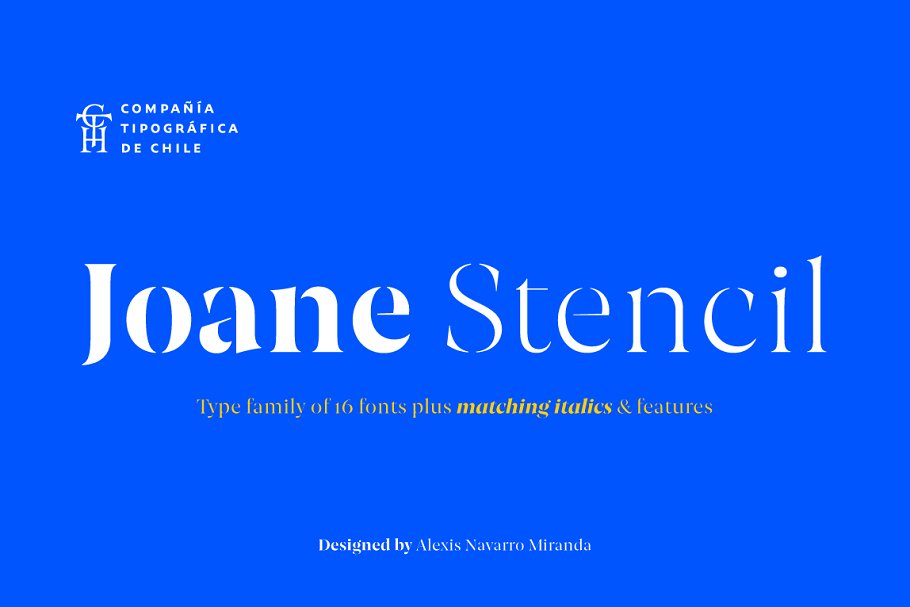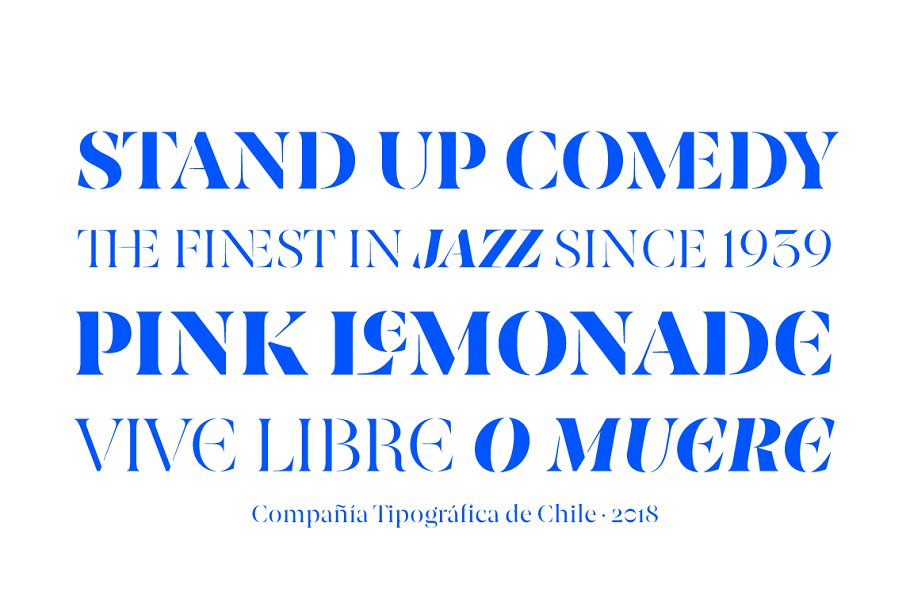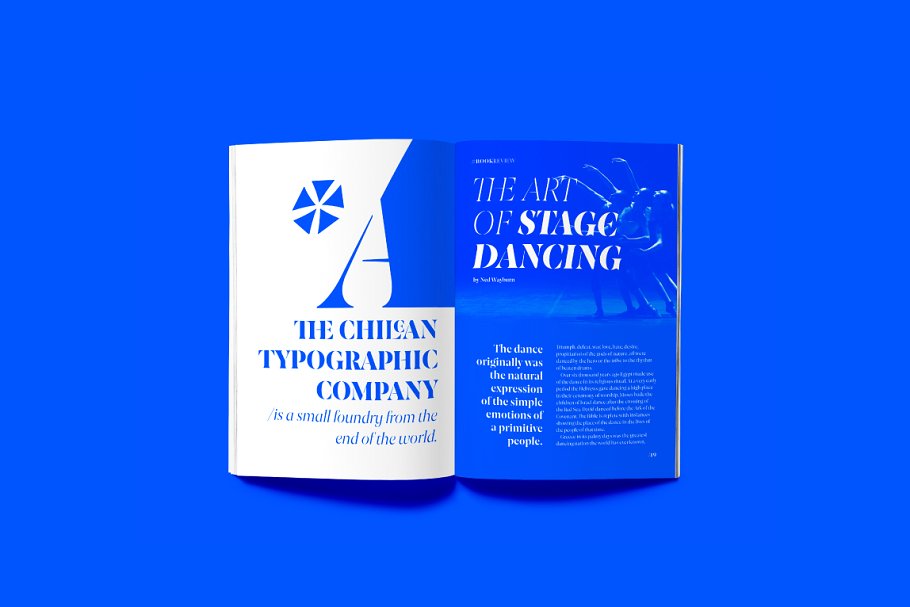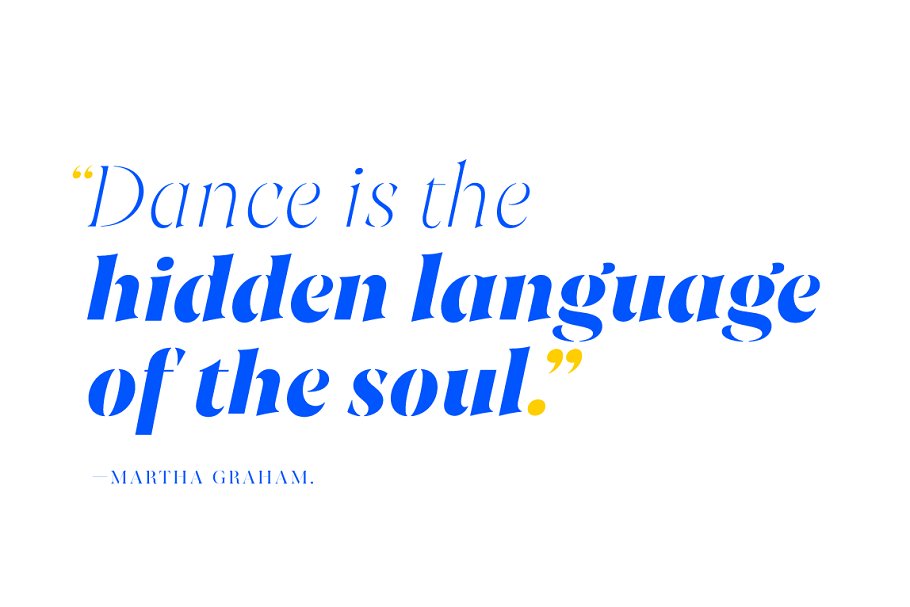
Joane Stencil Font
Joane Stencil is Joane’s fearless sequel. Mixes the elegancy of French didones, calligraphic endings, glyphic serifs and the split of the Stencil is treated very carefully. Thus its features convey a warm unique style.